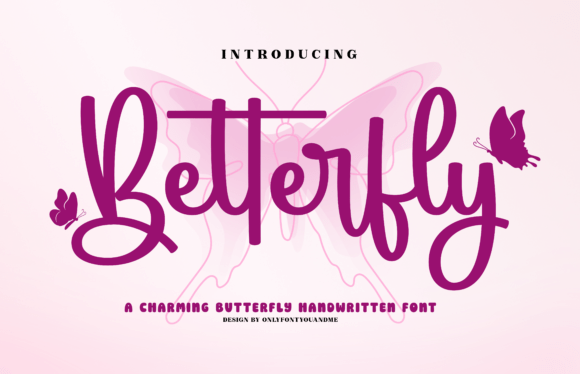
The Magical World of Betterfly Font: A Designer’s Delight
The charming handwritten script, complete with delicate butterfly illustrations, instantly transported me to a world of beauty and creativity. I knew right then and there that this font was exactly what I needed to bring my client’s vision to life.
An Honest Review of Betterfly Font
- ✨ Smooth, flowing strokes that give it an elegant yet playful feel
- ✅ Well-balanced letterforms with soft curves and stylish flourishes
- 🌸 Delicate butterfly illustrations integrated into the typography, adding a magical touch
- 📚 Highly readable while still feeling artistic and decorative
While Betterfly Font is a stunning addition to any design project, there are a few things to keep in mind: ⚠️
- 🤔 Some of the butterfly illustrations can be a bit finicky to work with, especially when it comes to resizing or recoloring
- ⚠️ The font may not be suitable for very small or detailed designs, as some of the delicate features can get lost
- Experiment with OpenType features like ligatures and stylistic alternates to add more personality to your text
- Explore the Glyphs panel to access additional characters, such as butterfly illustrations and swashes
The Story Behind Betterfly Font
According to its creator, Betterfly Font was inspired by the beauty and wonder of butterflies. The designer wanted to capture the delicate, whimsical quality of these creatures in a font that would bring joy and elegance to any design project. With its smooth strokes, elegant letterforms, and charming butterfly illustrations, Betterfly Font is a true reflection of the designer’s passion for nature and creativity.
Q: What makes Betterfly Font so special?
A: Betterfly Font is special because of its unique combination of smooth, flowing strokes and delicate butterfly illustrations, making it perfect for feminine and creative designs.
Q: Is Betterfly Font easy to read?
A: Yes, Betterfly Font is highly readable, making it perfect for designs that require a touch of elegance and sophistication.